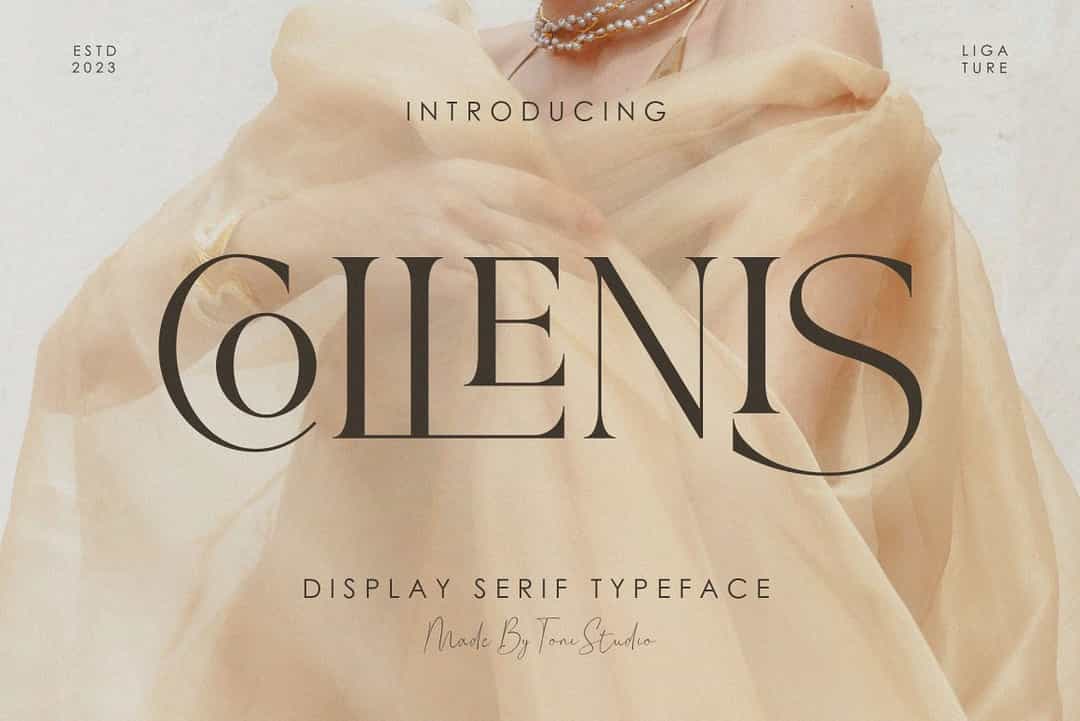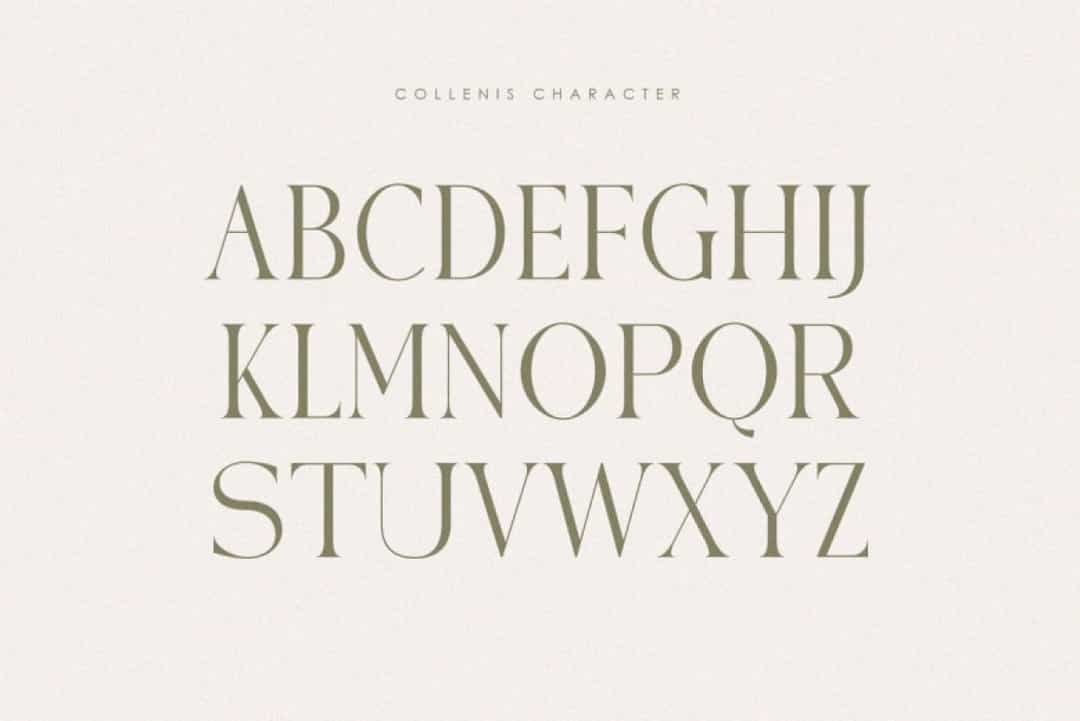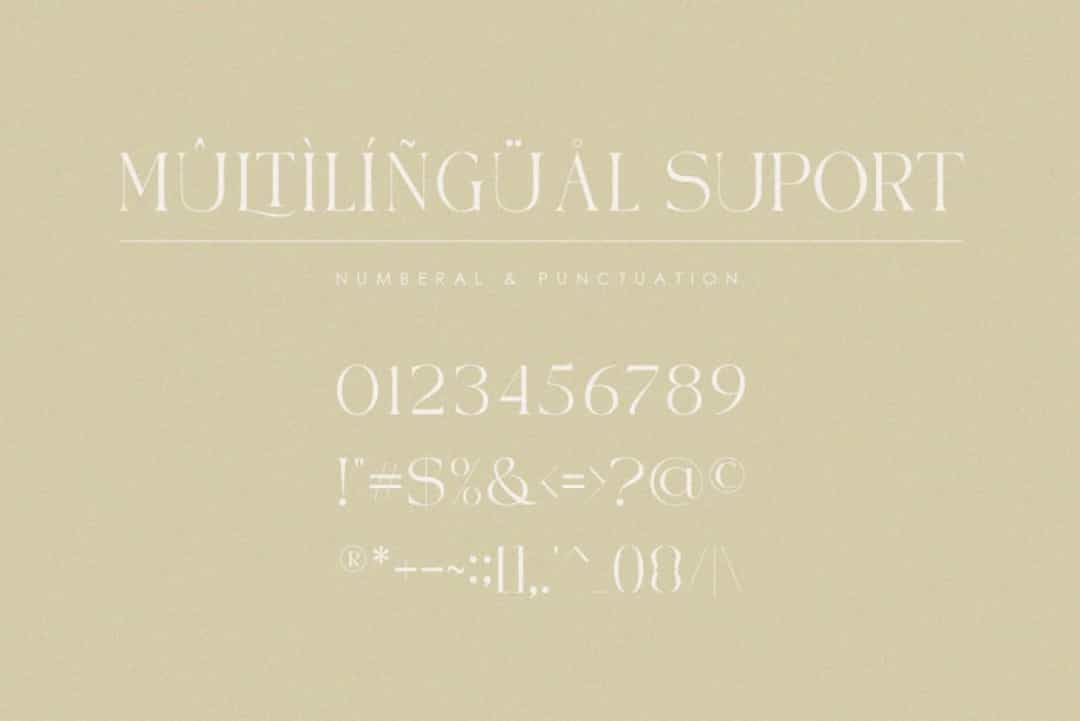
Collenius is a modern serif font featuring elegant capital letters with rich contrasts. Perfect for projects related to fashion, luxury lifestyle designs or lifestyle design. Logos, signatures and stationery related to weddings as well as typography quotes magazines or book covers headers are some of the elements needed in creating logos, signatures and stationery as part of branding efforts. Furthermore, fashion related branding conveys feminine and masculine characteristics in their designs.